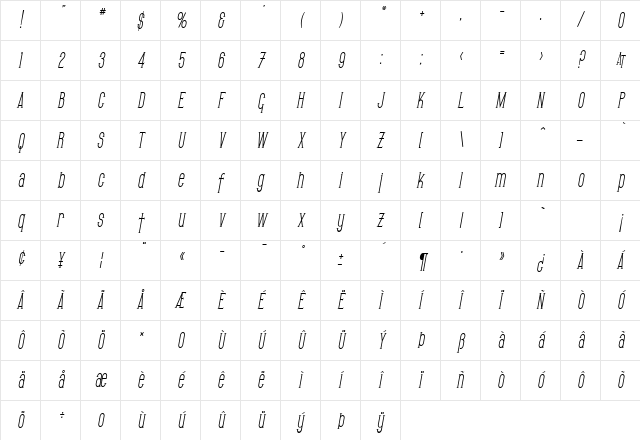
Complete SF Gothican Condensed Oblique glyph index. Displaying only characters natively supported by SF Gothican Condensed Oblique font.
SF Gothican Condensed takes a clean, functional approach - its unadorned letterforms prioritise legibility and work reliably across screen and print environments. The slanted form adds forward momentum and visual energy. Its narrow stance lets it pack a punch even in space-constrained designs.
Font Pairing: Works well alongside a characterful serif or display font that can carry the expressive load while SF Gothican Condensed handles the functional copy.
Pro Tip: Use SF Gothican Condensed tightly set in headlines and banners - its condensed proportions make it ideal for maximum impact in minimum horizontal space.